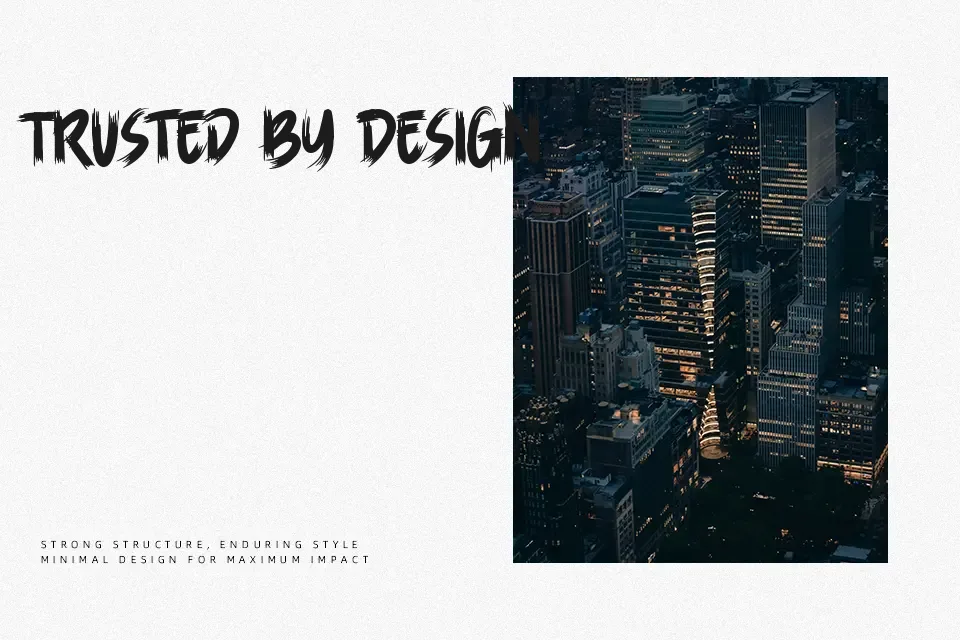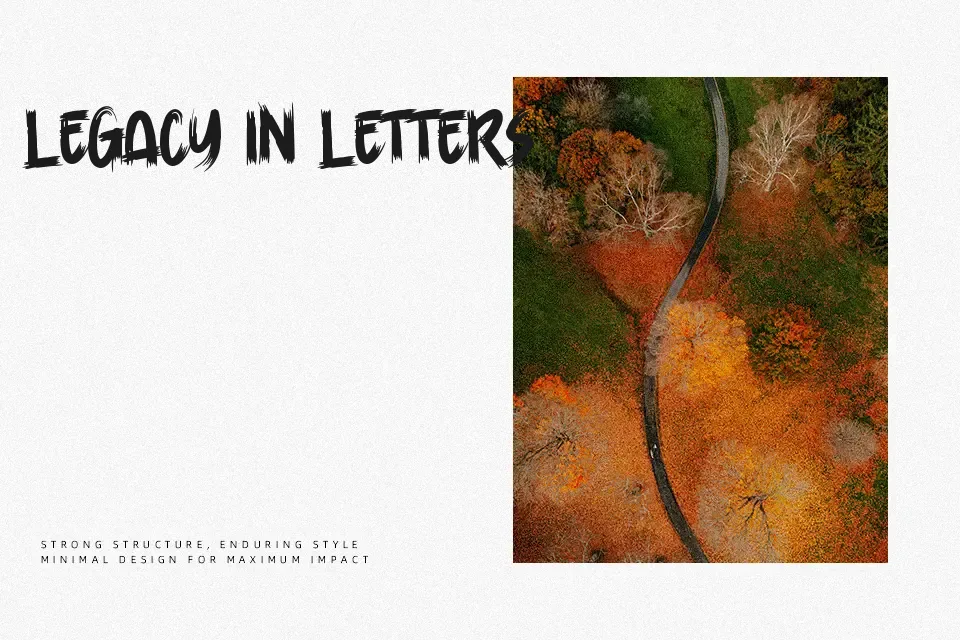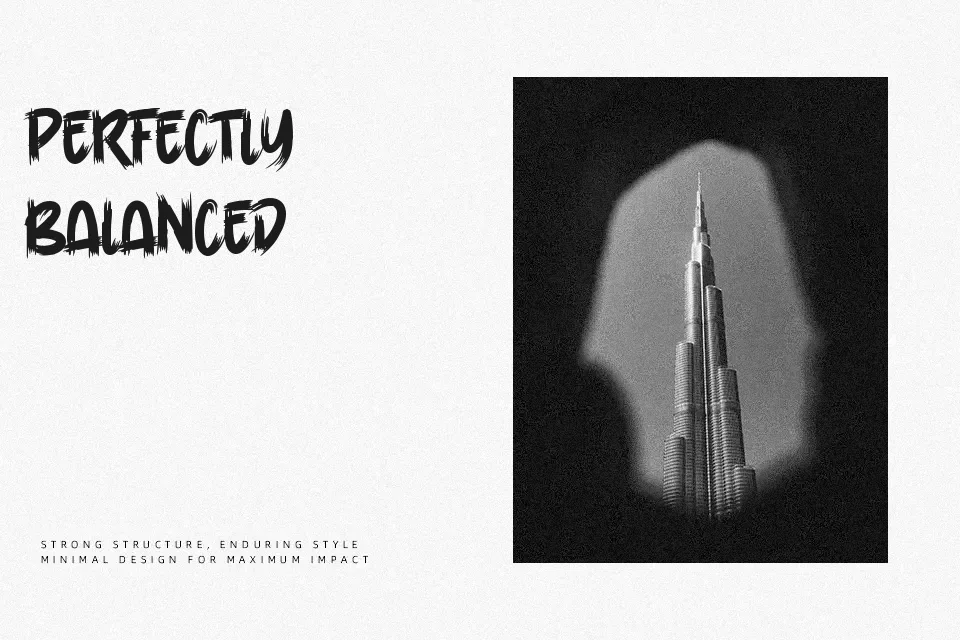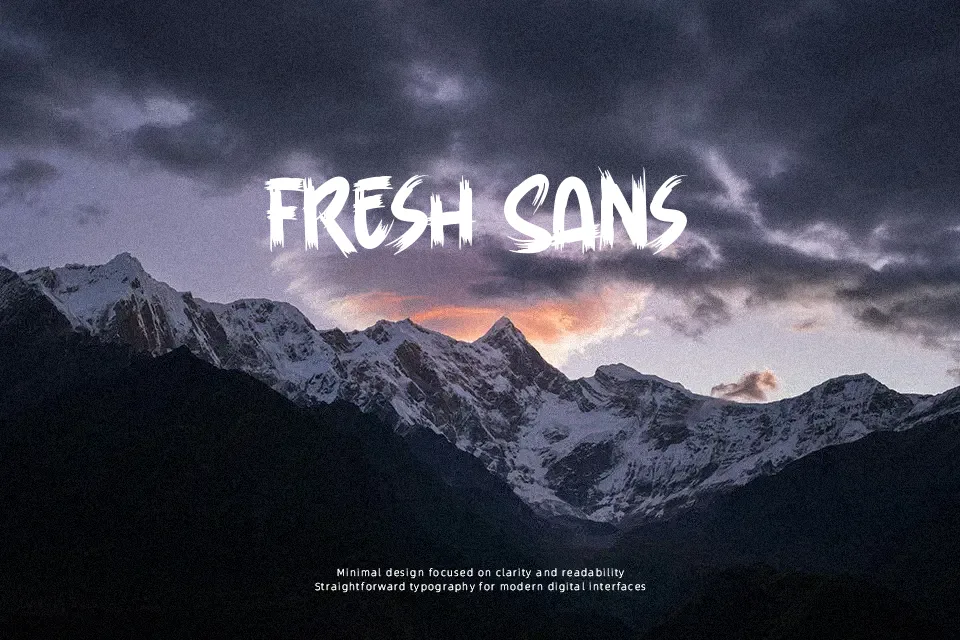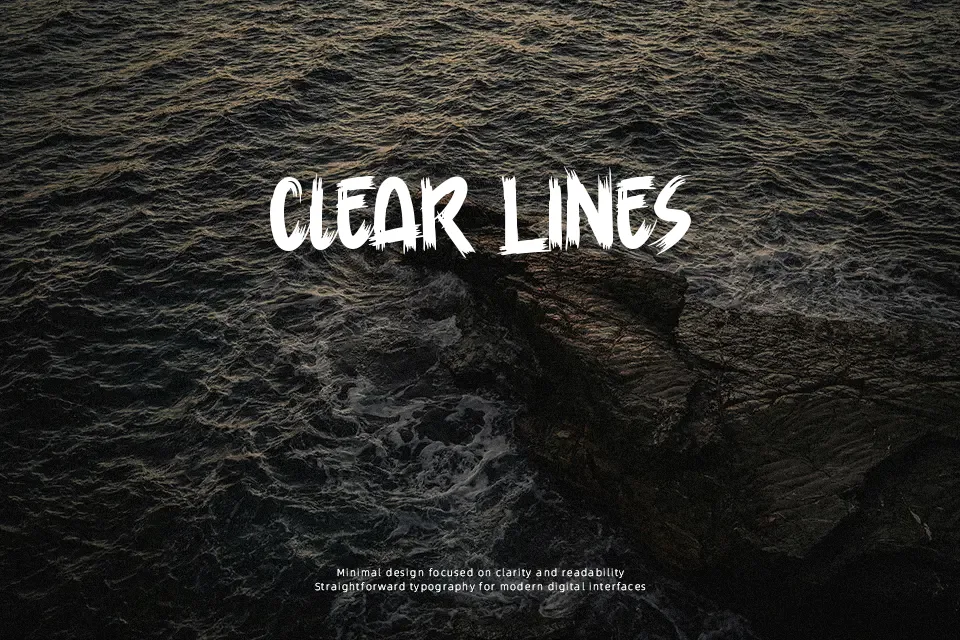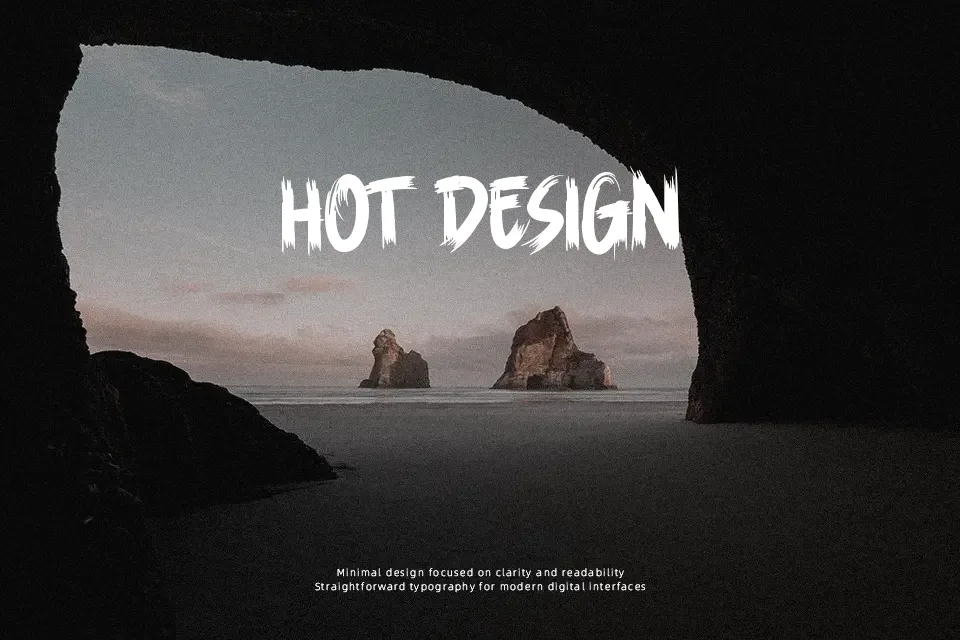
Ruthless Font
Ruthless Font is a bold, rough brush typeface characterized by its dramatic and aggressive letterforms. The uneven, jagged strokes create a raw, energetic texture that mimics fast, hand-drawn lettering. Its thick structural weight and balanced proportions ensure a strong visual impact in large display settings. The character spacing remains relatively open for a brush design, helping maintain clarity in larger headlines, heavy metal album covers, and spooky event posters. This typeface performs best when displayed at extreme sizes where its gritty details are fully visible. However, the textured edges and heavy forms significantly reduce continuous reading comfort, making it less suitable for long paragraphs or small captions.
horror event posters, extreme sports apparel, heavy metal album covers, dramatic festival headlines
long paragraph text, small interface labels, corporate reports, dense editorial layouts
Perfect for halloween, headline, and music, with a bold and brush style.